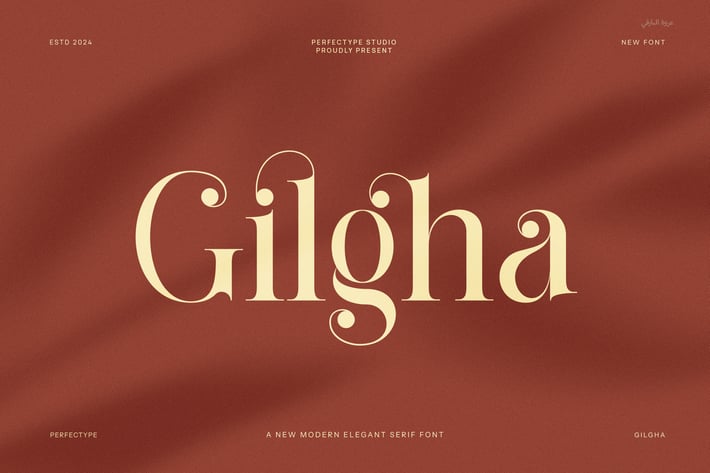
Gilgha Modern Serif Font
Gilgha Modern Serif is a sophisticated typeface that merges contemporary design with timeless refinement. Crafted with clean lines, balanced proportions, and a sleek geometric structure, this font is ideal for projects that demand both style and readability. Whether used for corporate branding, editorial layouts, or eye-catching advertisements, Gilgha exudes confidence and professionalism.
Designed for versatility, Gilgha seamlessly adapts to various creative applications. From bold logos and sleek website headers to esports branding and stylish magazine covers, this typeface maintains its elegant charm while making a strong statement. Its precise letterforms and refined serifs add a touch of character, ensuring clarity across both print and digital designs.
This font is an excellent choice for agencies, businesses, and creatives looking to establish a strong yet sophisticated visual identity. Whether crafting modern brochures, dynamic product packaging, or engaging social media templates, Gilgha provides the perfect balance between minimalism and visual impact. Its structured yet graceful form ensures that every design appears polished and high-end.
For those seeking a modern serif that embodies both professionalism and creative flair, Gilgha Modern Serif is the ultimate choice. Elevate your designs with this elegant and versatile typeface, ensuring that every word is delivered with confidence and style.